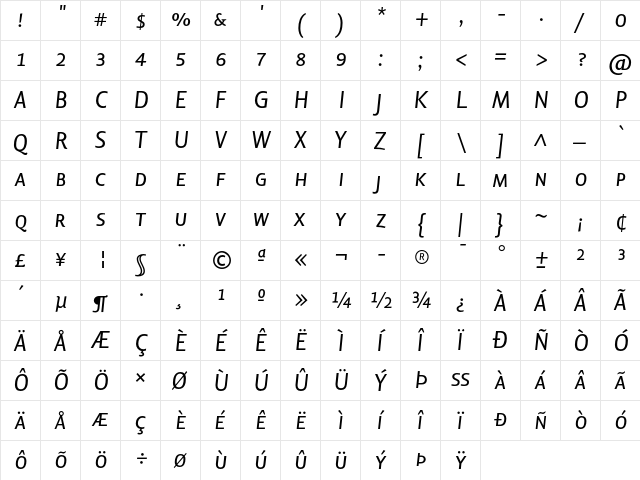
Lisboa SC Italic
Design Context for Lisboa SC Typeface
Lisboa SC is a composed and adaptable typeface that performs quietly and consistently across a wide range of design contexts. Its italic angle brings a sense of urgency and motion to the letterforms.
Pro Tip: Use Lisboa SC for emphasis, pull quotes, and subheadings where its slanted energy can add rhythm to the layout.